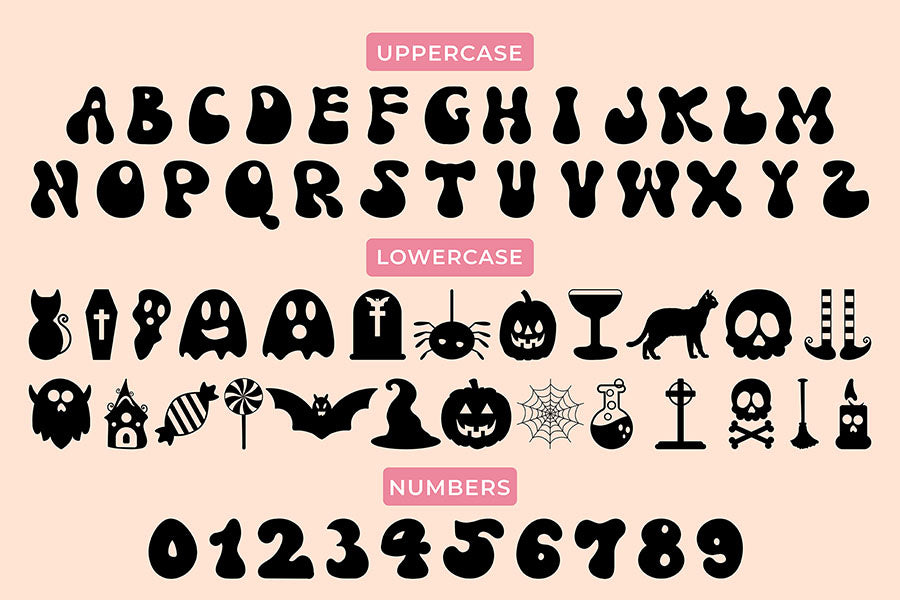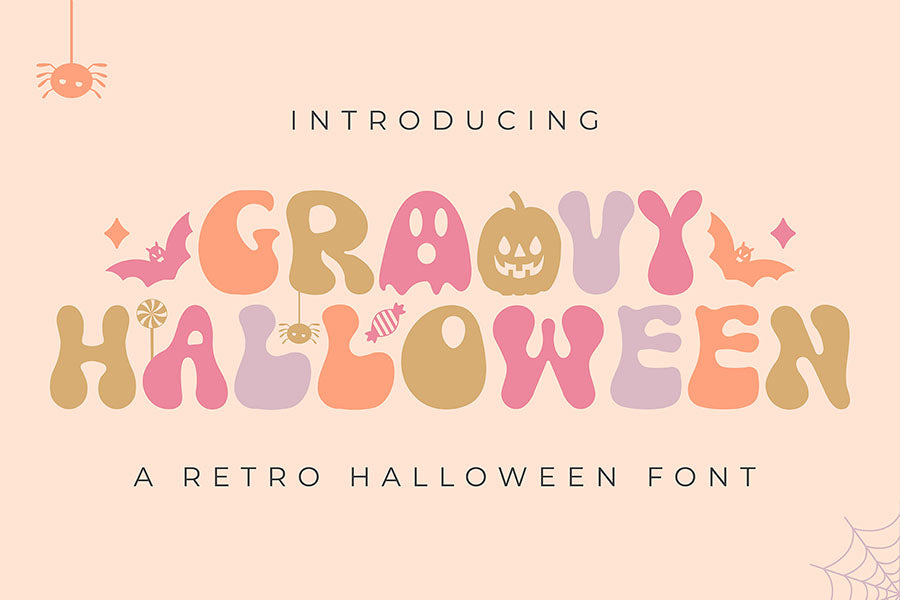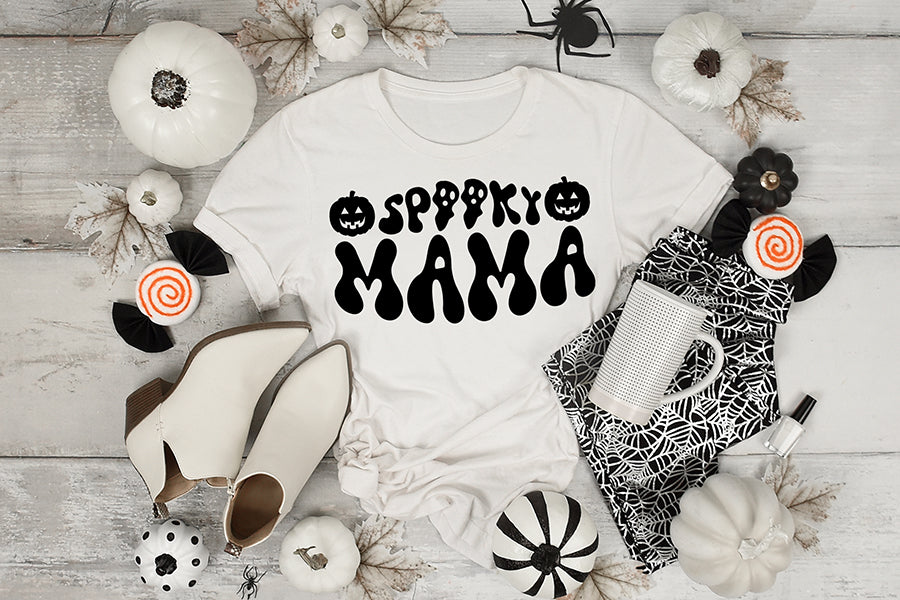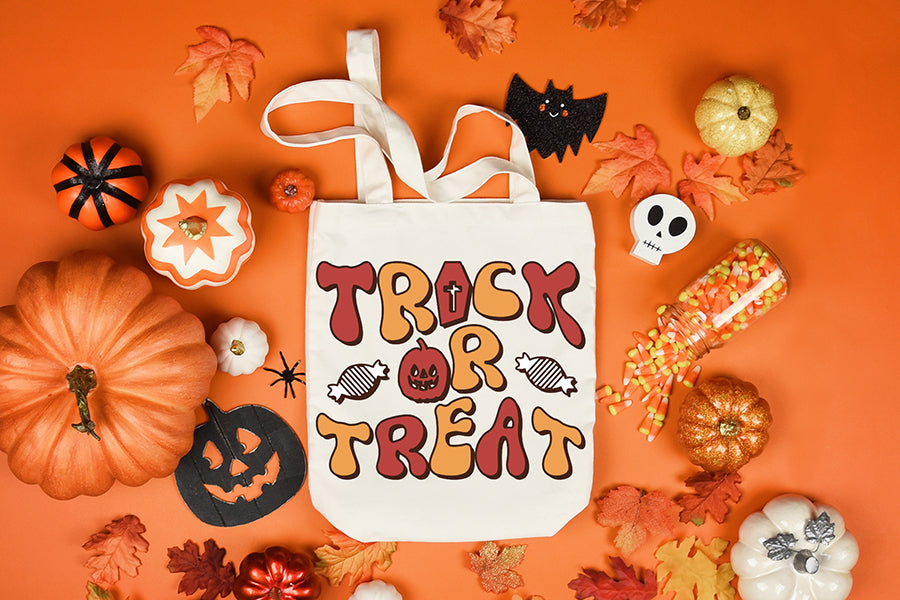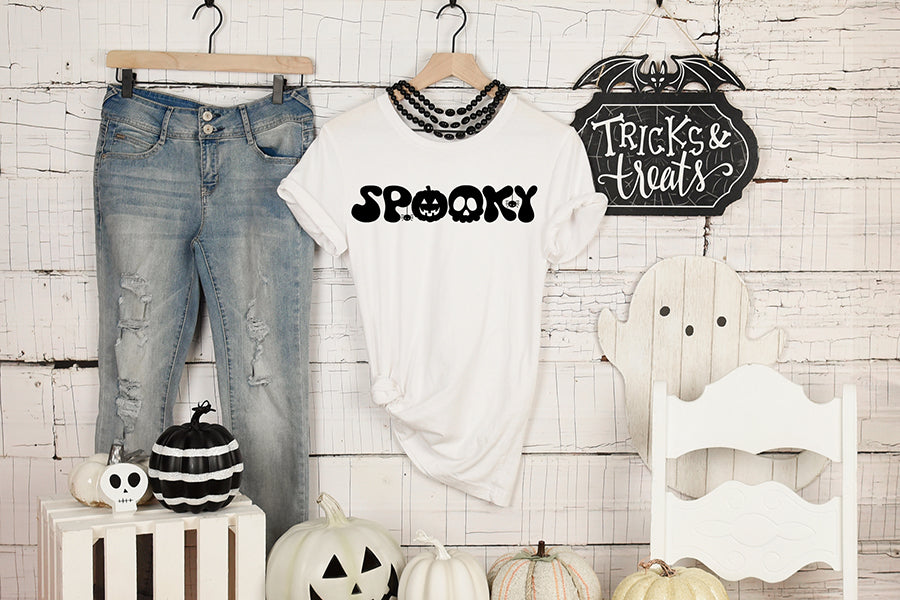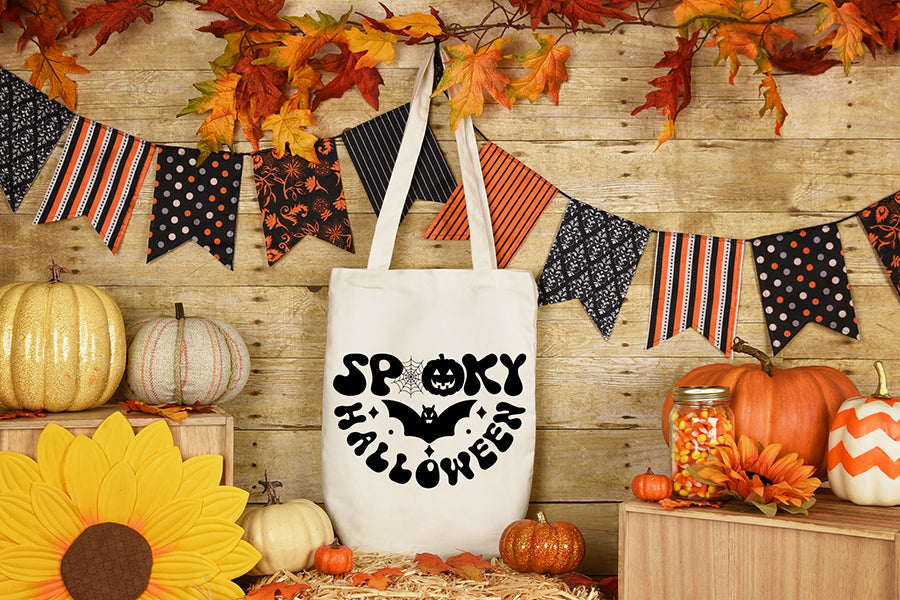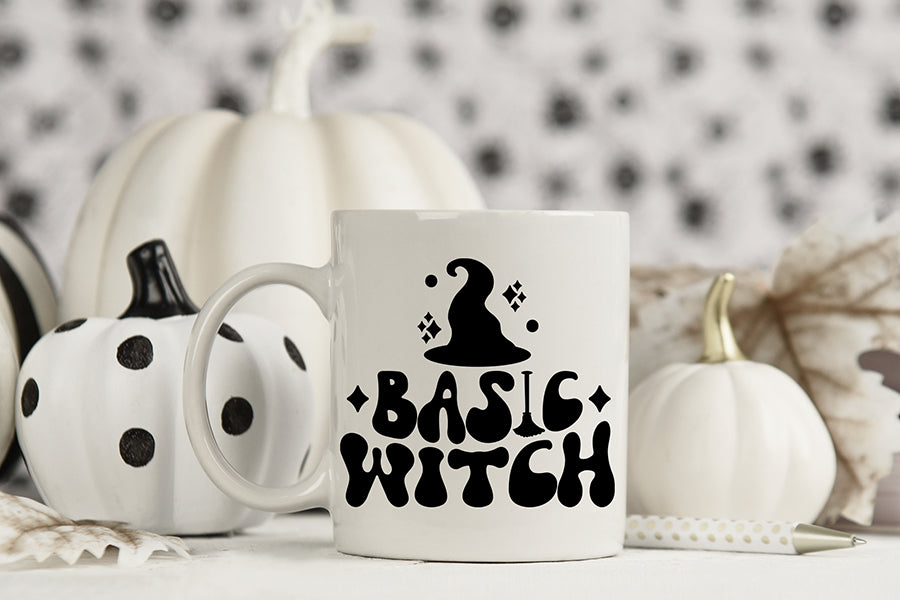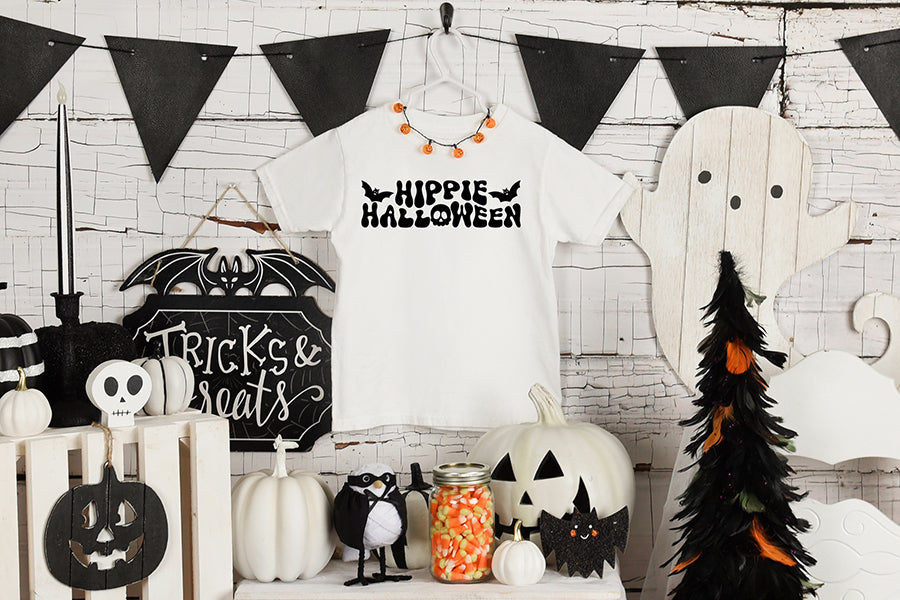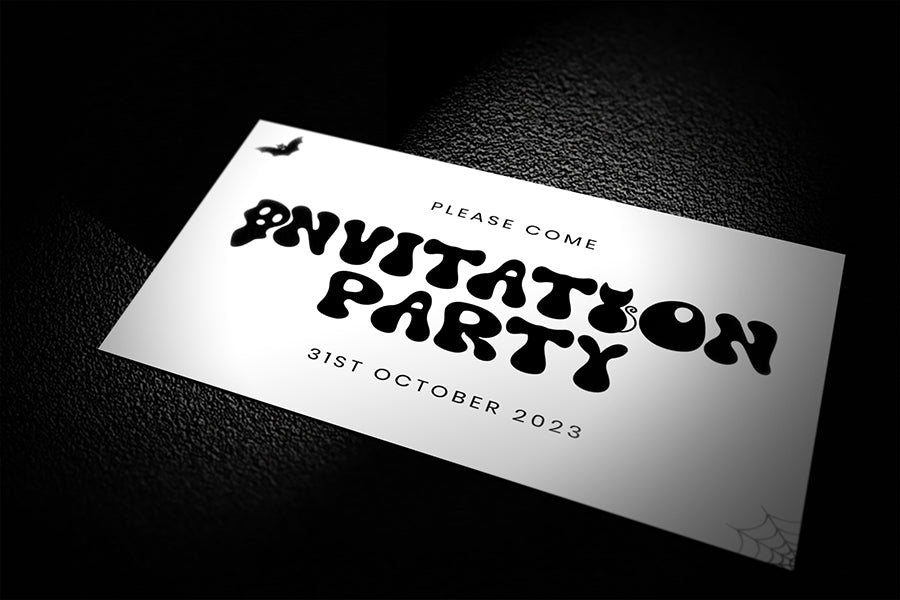
Groovy Halloween - A Retro Halloween Font
Groovy Halloween is a spooky, stylish, and playful retro display font, perfect for crafting, branding and decorating your any Halloween project. Use it for greeting cards, retro designs, book covers, stationery, magazines, headlines, procreates, book covers, t-shirts, mugs, and more.